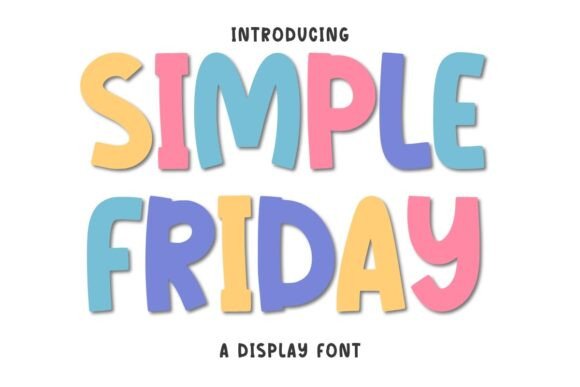
Discover the Power of Simple Friday Font: Elevate Your Designs with a Cool, Bold Display Font
Are you tired of using the same old fonts in your designs? Do you want to add a touch of uniqueness and personality to your work? Look no further than the Simple Friday Font, a cool, bold display font that’s sure to bring your designs to life. In this article, we’ll explore the features and benefits of Simple Friday Font, and show you how to incorporate it into your favorite designs.
What is Simple Friday Font?
Simple Friday Font is a modern, bold display font that’s perfect for designers looking to add a touch of sophistication and style to their work. With its clean lines, simple shapes, and bold typography, this font is sure to make a statement in any design. Whether you’re working on a logo, brochure, or website, Simple Friday Font is the perfect choice for adding a professional touch.
Key Features of Simple Friday Font
- Bold and Eye-Catching: Simple Friday Font is designed to grab attention and make a statement. Its bold typography and clean lines make it perfect for headlines, titles, and other display text.
- Unique and Beautiful Style: Simple Friday Font has a unique and beautiful style that’s sure to set your designs apart from the rest. Its simple shapes and clean lines make it easy to read and understand, while its bold typography adds a touch of sophistication.
- Versatile: Simple Friday Font is a versatile font that can be used in a variety of designs, from logos and brochures to websites and social media graphics.
- Easy to Read: Despite its bold typography, Simple Friday Font is easy to read and understand, making it perfect for use in body text as well as display text.
Get Inspired by Simple Friday Font
Simple Friday Font is more than just a font – it’s a design inspiration. Its unique and beautiful style is sure to spark your creativity and inspire you to create something amazing. Whether you’re a seasoned designer or just starting out, Simple Friday Font is the perfect choice for adding a touch of sophistication and style to your work.
So why settle for boring, generic fonts when you can add a touch of elegance and sophistication to your designs with Simple Friday Font? With its bold typography, clean lines, and simple shapes, this font is sure to bring your designs to life and leave a lasting impression on your audience.
How to Use Simple Friday Font in Your Designs
Using Simple Friday Font in your designs is easy. Here are a few tips to get you started:
- Use it as a Headline Font: Simple Friday Font is perfect for use as a headline font. Its bold typography and clean lines make it easy to read and understand, even at large sizes.
- Add it to Your Logo: Simple Friday Font is a great choice for logos, thanks to its unique and beautiful style. Use it to add a touch of sophistication and elegance to your brand identity.
- Use it in Your Website Design: Simple Friday Font is a great choice for website design, thanks to its clean lines and simple shapes. Use it to add a touch of professionalism and style to your website.
- Experiment with Different Colors: Simple Friday Font looks great in a variety of colors. Experiment with different colors and combinations to find the one that works best for your design.
The Benefits of Using Simple Friday Font
There are many benefits to using Simple Friday Font in your designs. Here are a few:
- Improved Readability: Simple Friday Font is easy to read and understand, making it perfect for use in body text as well as display text.
- Increased Professionalism: Simple Friday Font is a professional font that’s sure to add a touch of sophistication and elegance to your designs.
- Unique and Memorable: Simple Friday Font has a unique and beautiful style that’s sure to make your designs stand out from the rest.
- Versatile: Simple Friday Font can be used in a variety of designs, from logos and brochures to websites and social media graphics.
In conclusion, Simple Friday Font is a cool, bold display font that’s perfect for designers looking to add a touch of sophistication and style to their work. With its clean lines, simple shapes, and bold typography, this font is sure to bring your designs to life and leave a lasting impression on your audience. So why settle for boring, generic fonts when you can add a touch of elegance and sophistication to your designs with Simple Friday Font?